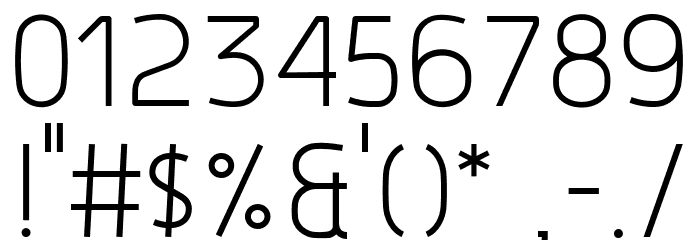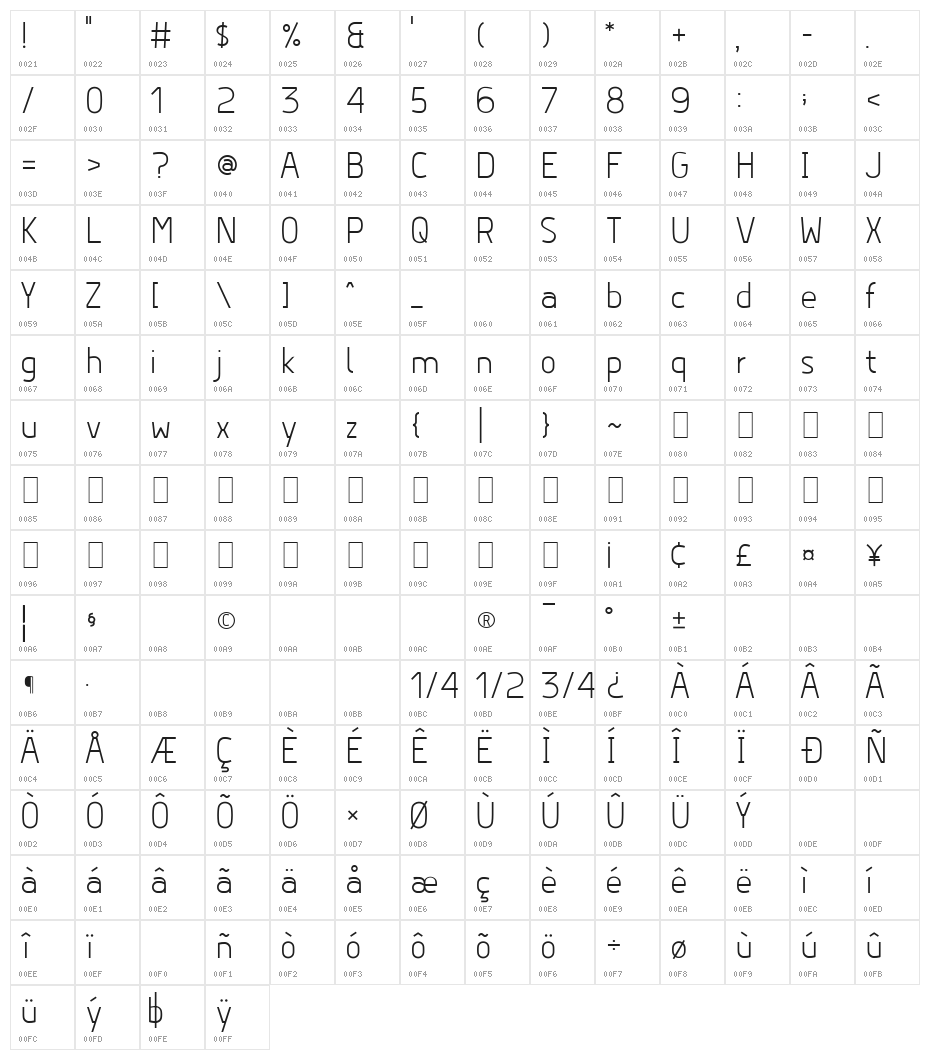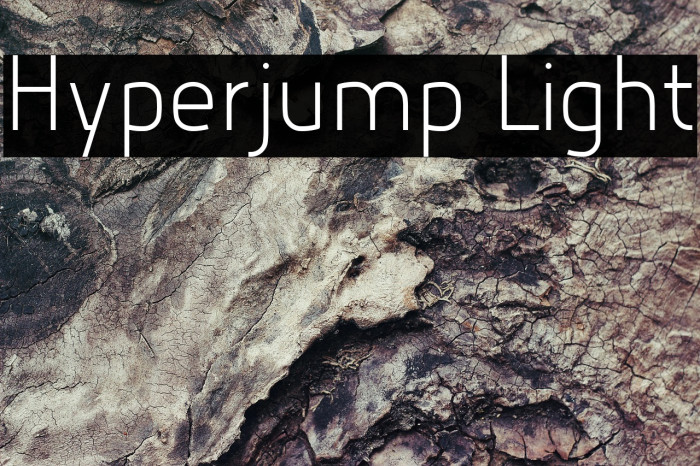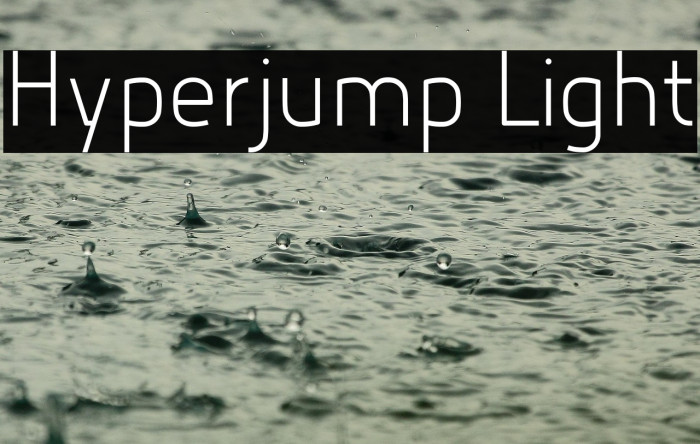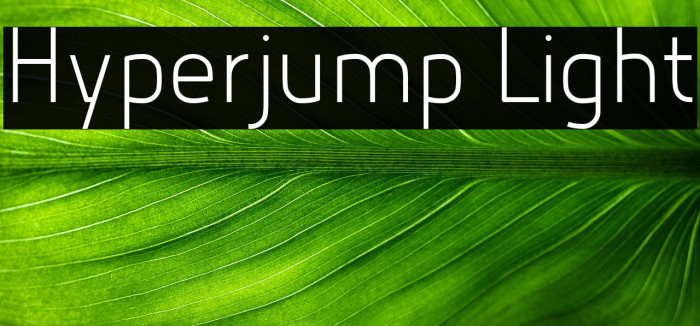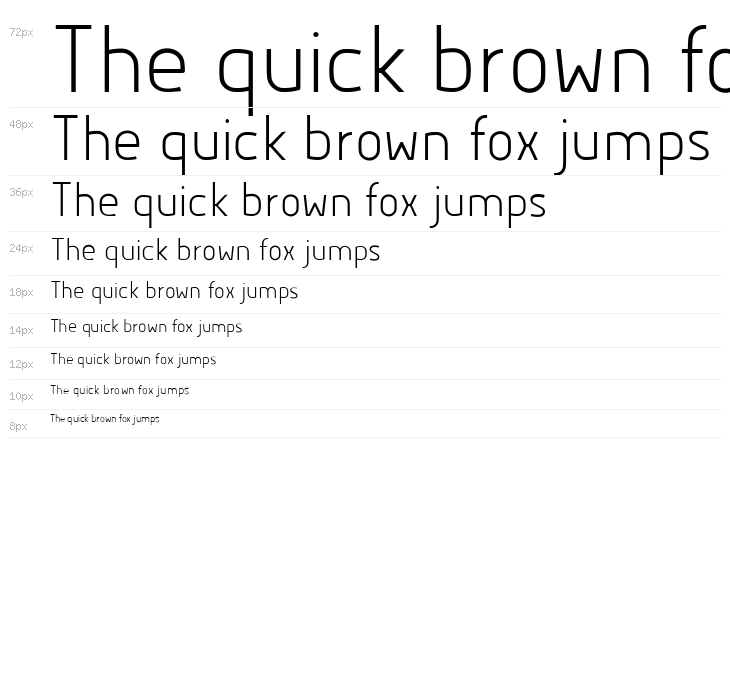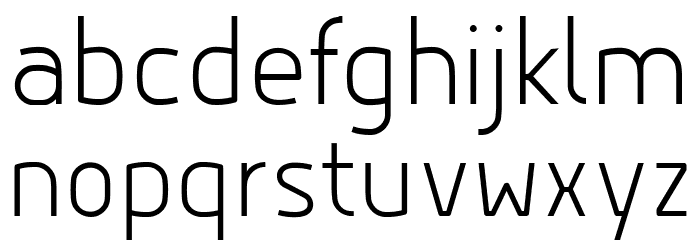
Hyperjump Light Font
Hyperjump Light Description
This font features a clean and modern sans-serif style with a light weight, making it ideal for minimalist designs. The characters are evenly spaced with a slightly condensed width, giving it a sleek and streamlined appearance. The strokes are consistent in thickness, providing a low contrast that enhances readability. The overall design is simple yet elegant, suitable for a wide range of applications. The uppercase and lowercase letters are well-proportioned, and the numerals are clear and distinct. Special characters are included, maintaining the font's cohesive look.
| Proposed Projects | Ideal for digital interfaces, branding, and editorial design where clarity and modernity are key. |